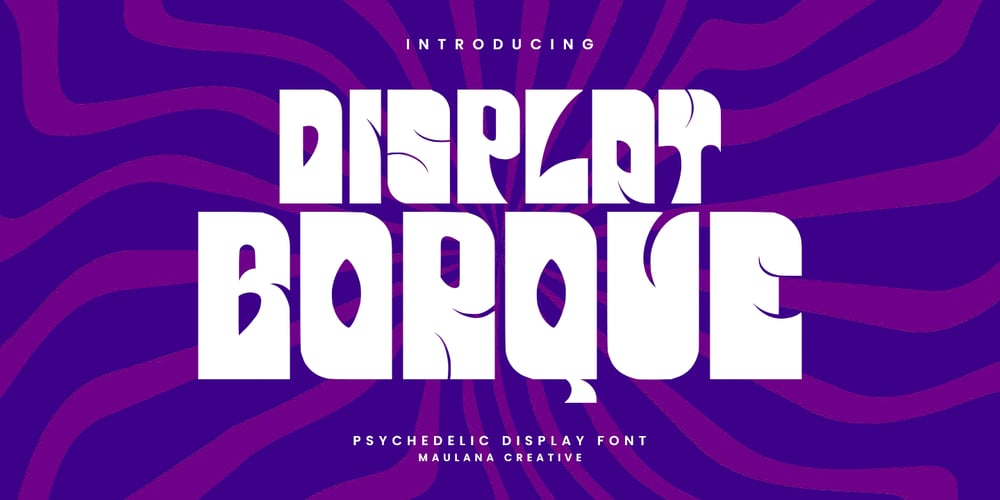
MC Borque
MC Borque font
MC Borque Font Family was designed by Gilang Maulana and published by Maulana Creative. MC Borque contains 1 styles and family package options. Borque display font. Heavy stroke, fun characters. To give you an extra creative work. Borque display font support multilingual language. This font is good for logo design, Social media, Movie Titles, Books Titles, a short text even a long text letter and good for your secondary text font with script or serif. Make a stunning work with Borque display font.